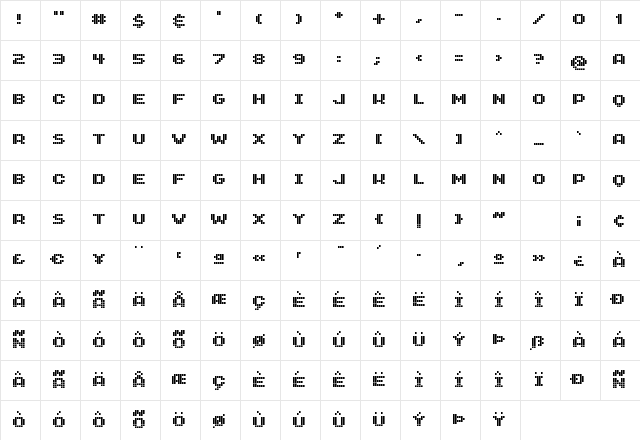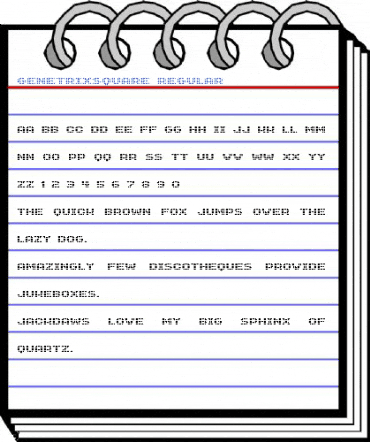
GenetrixSquare Regular Free Font
GenetrixSquare Regular
Design Context for GenetrixSquare
GenetrixSquare is a composed and adaptable typeface that performs quietly and consistently across a wide range of design contexts.